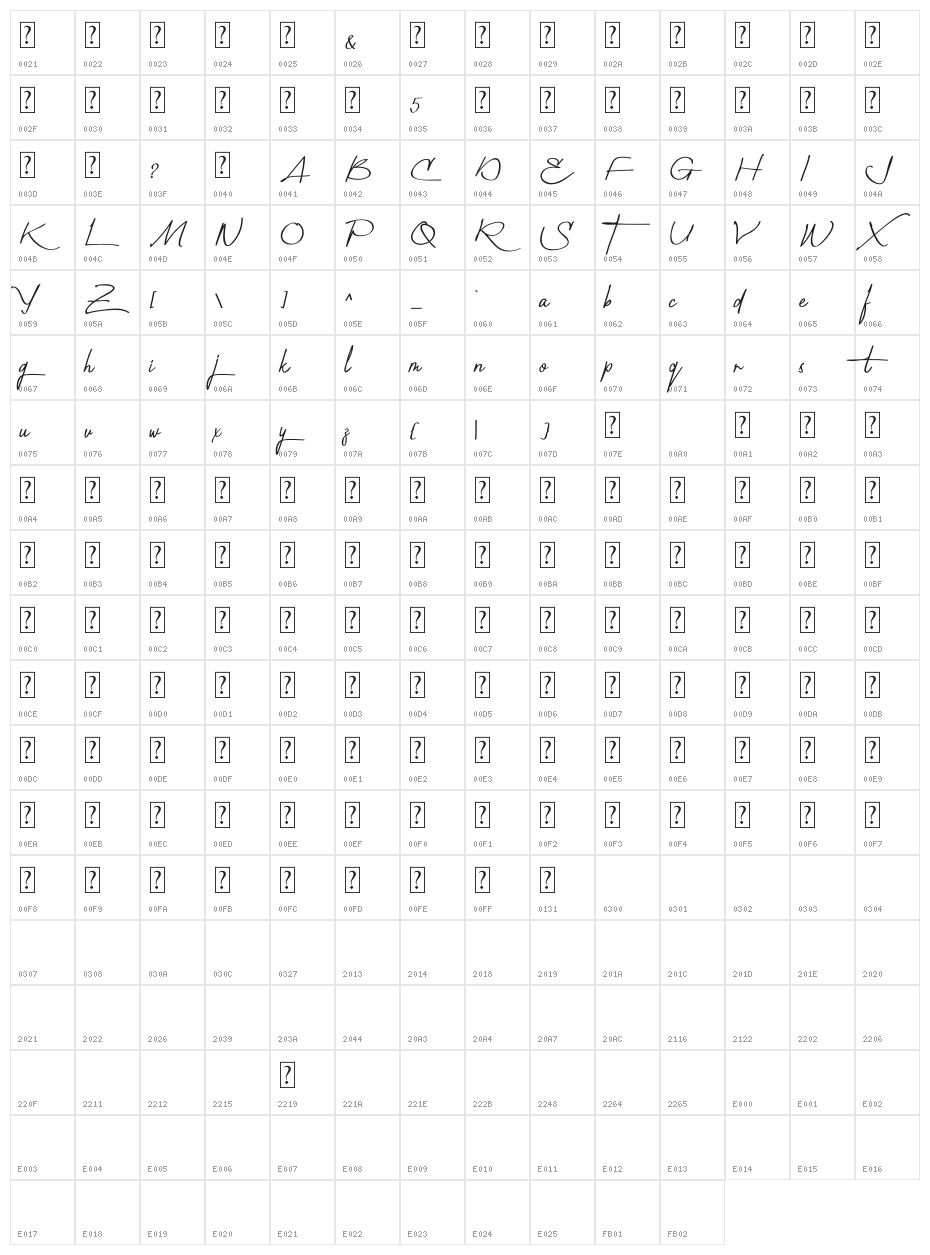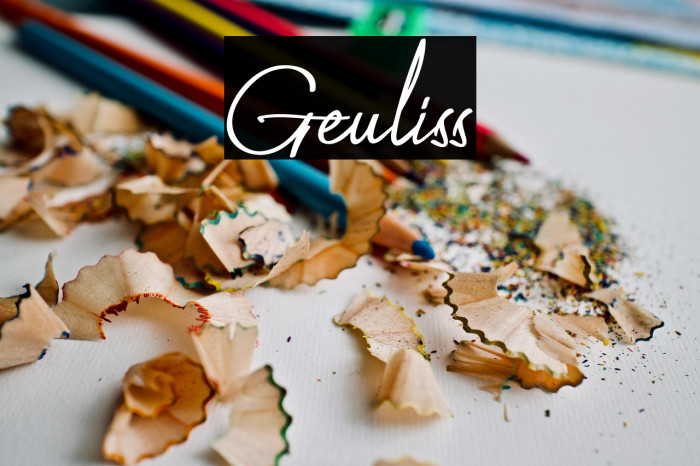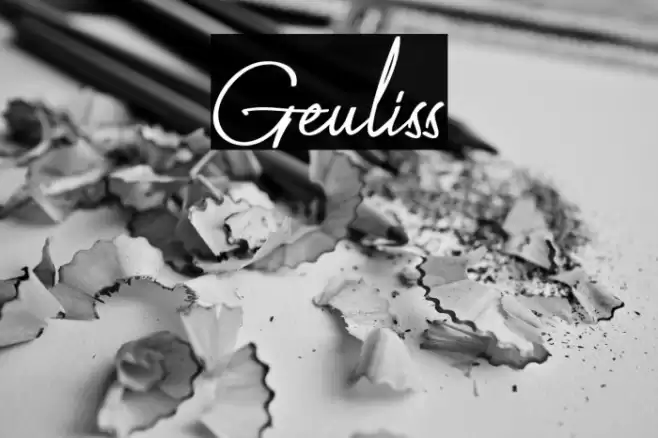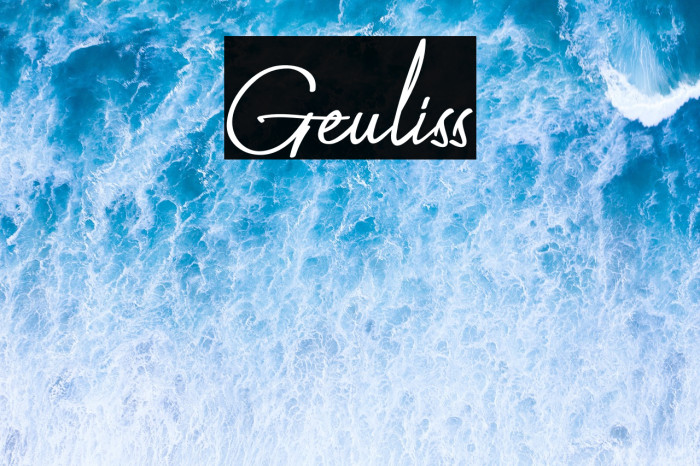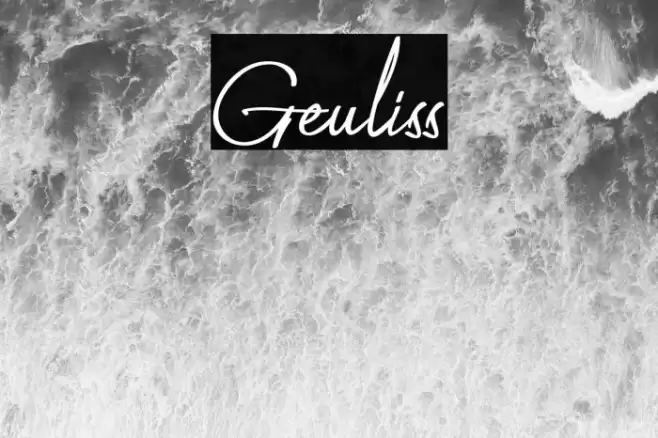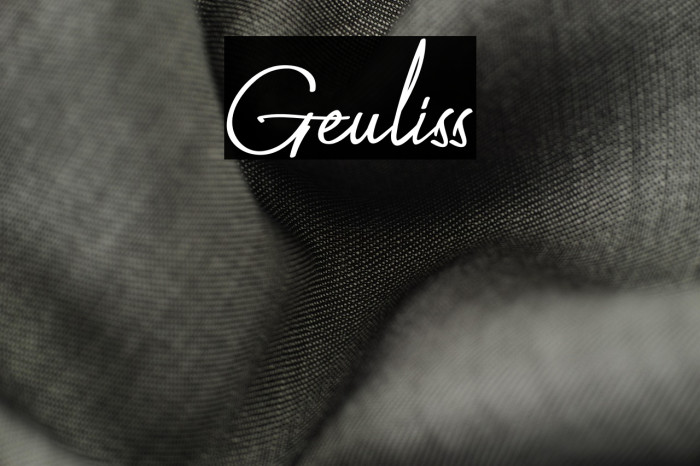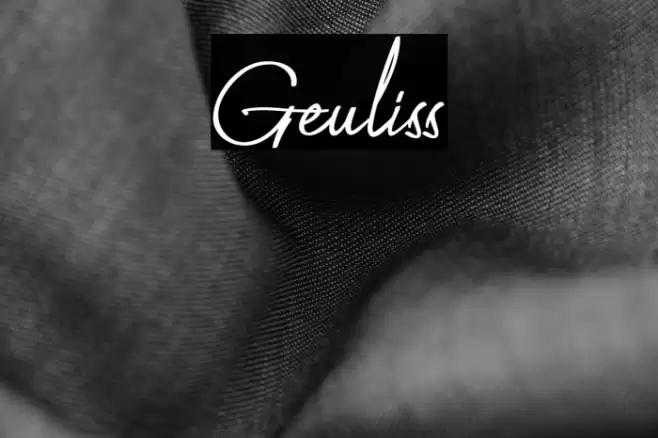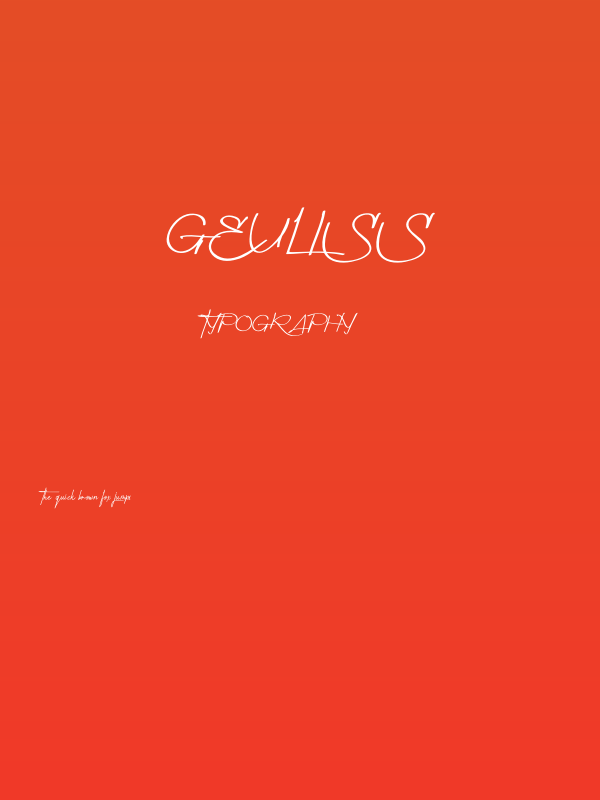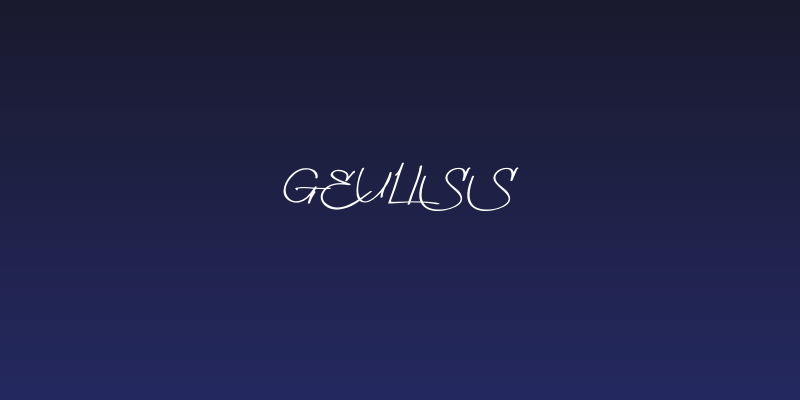
Geuliss Font
Geuliss Description
This font features a dynamic and fluid script style, characterized by its elegant and flowing letterforms. The uppercase letters are elongated and slightly slanted, giving a sense of movement and grace. The lowercase letters maintain a consistent style with smooth curves and connected strokes, enhancing the handwritten feel. The numbers and special characters complement the overall aesthetic, maintaining the same fluidity and elegance. This font is perfect for adding a personal and artistic touch to any design project.
| Proposed Projects | Ideal for wedding invitations, greeting cards, branding projects, and any design requiring a personal touch. |